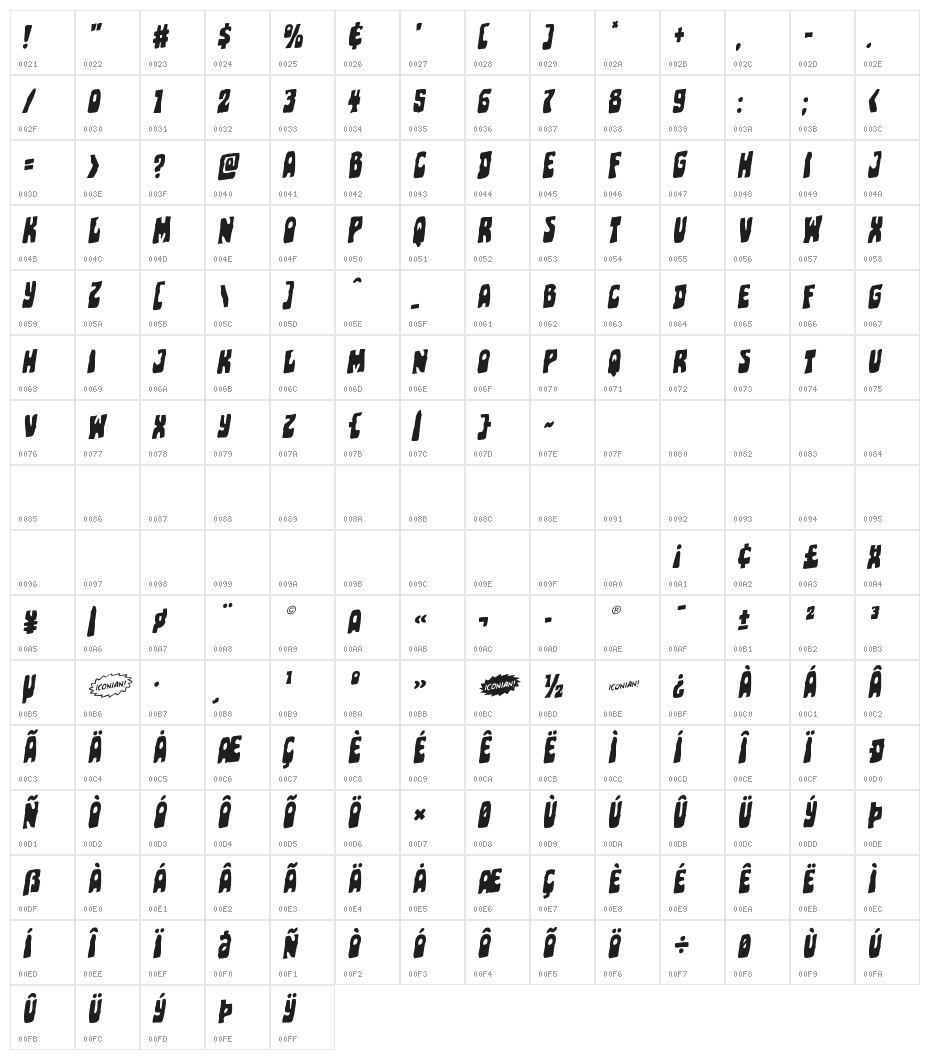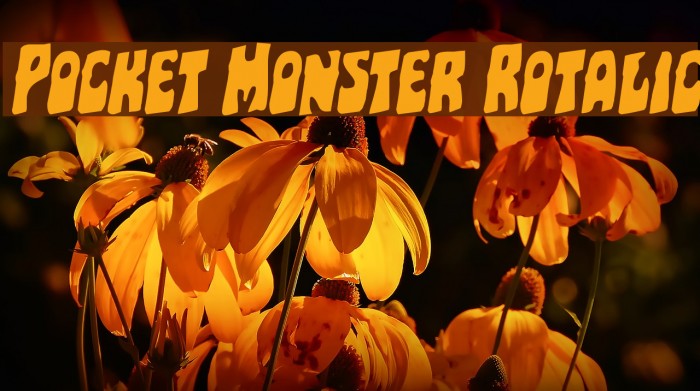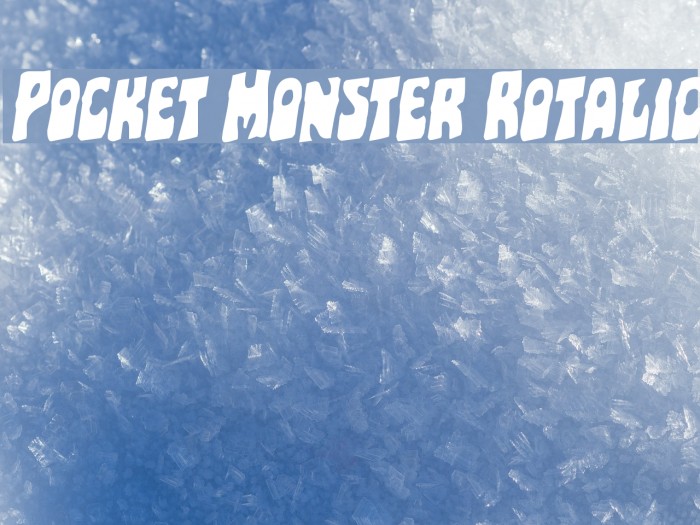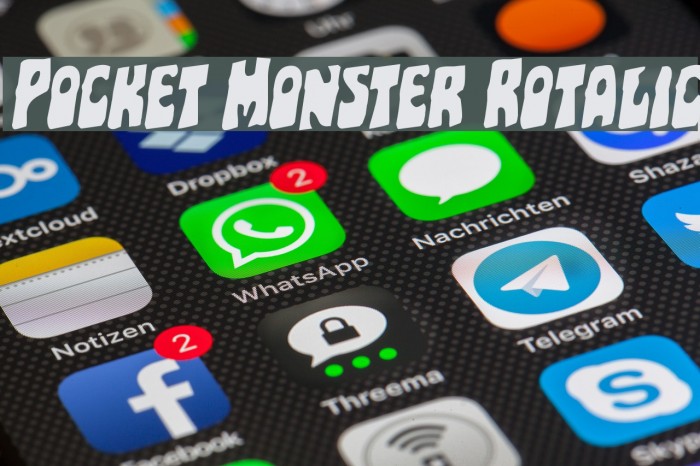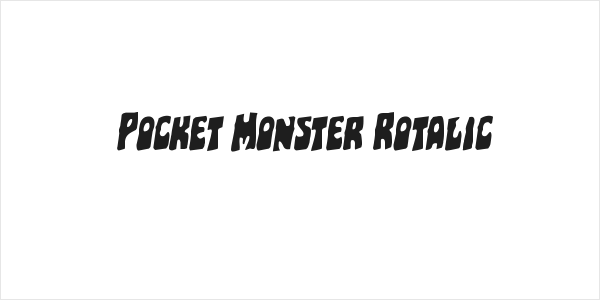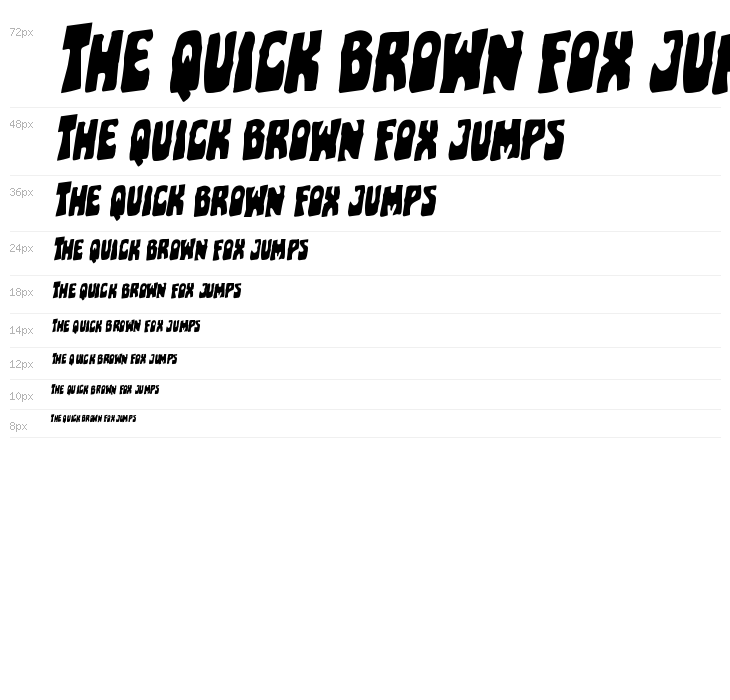
Pocket Monster Rotalic Font
Pocket Monster Rotalic Description
This font features a bold and playful design with a dynamic, wavy appearance. The characters are thick and slightly distorted, giving them a whimsical and energetic feel. The uppercase and lowercase letters maintain a consistent style, with exaggerated curves and angles that create a sense of movement. The numbers and special characters follow the same design principles, ensuring a cohesive look across all elements. The font's unique style makes it stand out, making it ideal for projects that require a fun and eye-catching typeface.
| Overall Style | Playful, Energetic |
| Proposed Projects | Ideal for children's book covers, playful branding, video game graphics, and event posters. |